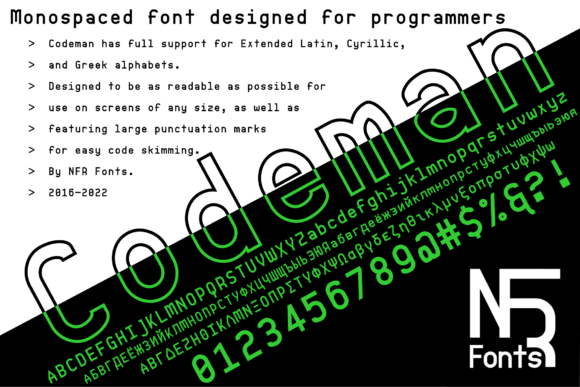
Codeman Font: The Ultimate Choice for Modern Designs
In the world of typography, fonts play a crucial role in making or breaking a design. A perfect font can elevate your project from ordinary to extraordinary. If you’re a designer, craftsperson, or simply someone who appreciates great typography, you’re in luck. Meet Codeman Font, a cool and modern sans serif font that’s taking the design world by storm.
What is Codeman Font?
Codeman Font is a sleek and contemporary sans serif font designed to make a statement. Its clean lines, precise curves, and exceptional legibility make it perfect for a wide range of applications. Whether you’re working on a logotype, headline, corporate identity, brand identity, or any other creative project, Codeman Font is an excellent choice.
Key Features of Codeman Font
- Modern Sans Serif Design: Codeman Font boasts a modern sans serif design that’s both stylish and versatile.
- Exceptional Legibility: The font’s clean lines and precise curves ensure exceptional legibility, making it perfect for body text and headlines.
- Wide Range of Applications: Codeman Font is suitable for various industries, including apparel, music, movies, games, magazines, books, comics, cartoons, and more.
Why Choose Codeman Font?
With so many fonts available, why should you choose Codeman Font? Here are a few compelling reasons:
- Uniqueness: Codeman Font’s modern design sets it apart from traditional fonts, giving your project a fresh and distinctive look.
- Versatility: This font is incredibly versatile, making it suitable for a wide range of applications and industries.
- Easy to Read: Codeman Font’s exceptional legibility ensures that your message is conveyed clearly, whether it’s in a headline or body text.
How to Use Codeman Font?
Using Codeman Font is straightforward. Here are some tips to get you started:
- Logotype and Headlines: Use Codeman Font as a logotype or headline font to create a bold and lasting impression.
- Corporate Identity: Incorporate Codeman Font into your corporate identity to convey a modern and professional image.
- Print Materials: Codeman Font is also suitable for print materials, such as posters, flyers, brochures, and business cards.
Tips for Pairing Codeman Font with Other Fonts
Pairing Codeman Font with other fonts can create a visually appealing combination. Here are some tips:
| Font Name | Codeman Font |
| Author | NFR Fonts |